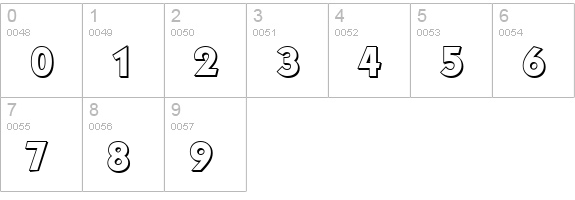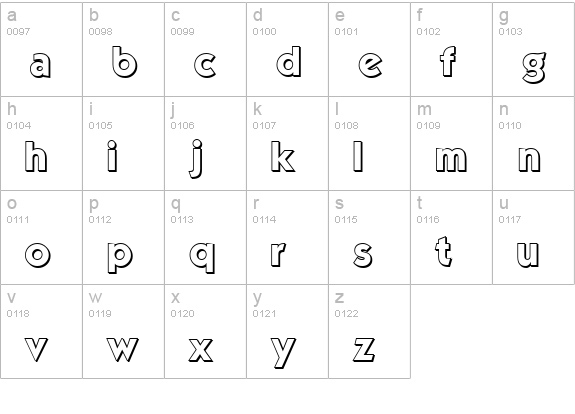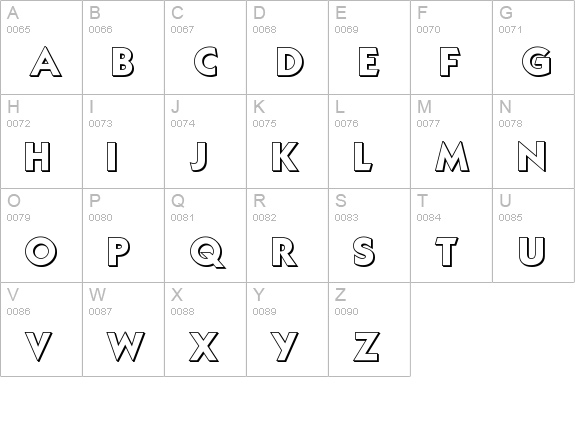
Mouser Outline Font Details
Mouser Outline font is a sleek and modern typeface that exudes sophistication and elegance. Its clean lines and sharp edges make it perfect for a wide range of design projects, from branding to packaging to digital media. The outline style adds a unique touch to any text, making it stand out and catch the eye. What's even better is that Mouser Outline font is available for free download at FontsMarket.com. This means that you can easily access this stylish font without having to spend a dime. Whether you're a designer, a student, or just someone looking to add a touch of class to your projects, Mouser Outline font is a fantastic choice. Don't miss out on this opportunity to enhance your designs with this beautiful and freely available font.